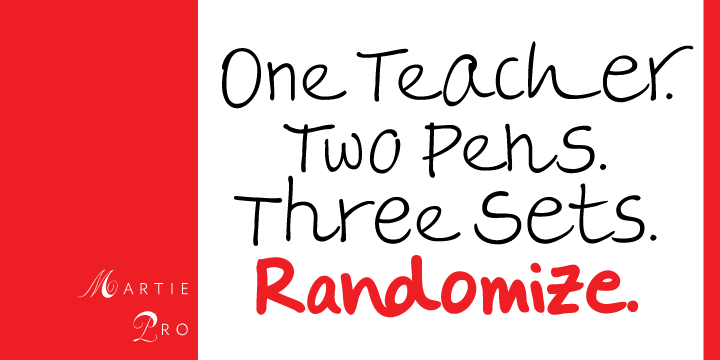
Martie Pro is a hand drawn font family. This typeface has two styles and was published by Canada Type.
From the heart of the Blue Ridge Mountains, by way of Toronto, comes Martie’s handwriting. Martie Byrd is a school teacher in Roanoke, Virginia, and a friend of Canada Type’s Rebecca Alaccari. After years of admiring the cheer and clarity of Martie’s handwriting, we asked her to write out full alphabets for some cool font treatment. The intent was to do three different versions of her writing in two different pens, then use the auto-magic of OpenType to determine letter sequences and rotate character sets on the fly when the fonts are in use. A successful endeavor it was.
Unlike other available felt tip and ballpoint handwriting fonts, the regular and bold variations are style-based, not weight-based. They are the handwritten expressions of two different Sharpie pens: The fine point one (Martie Bold), and the ultrafine one (Martie Regular). The style-based variation considerably helps the realism needed in design pieces that take advantage of the contrast of two different handwriting fonts. Weight thickening in handwriting is an obvious mechanical effect that only happens with computers. Weight changing by replacing pens is what happens in the real world.
Martie Pro and Martie Pro Bold each contain three different character sets in a single font. Language support includes Western, Central and Eastern European languages for all three sets. This translates into each Pro font containing over 750 characters. Add OpenType code and stir, and you have true handwriting fonts with versatility unavailable out there in anything else of the genre.
So next time a design project needs a handwriting font, do the write thing and use Martie to keep it real.